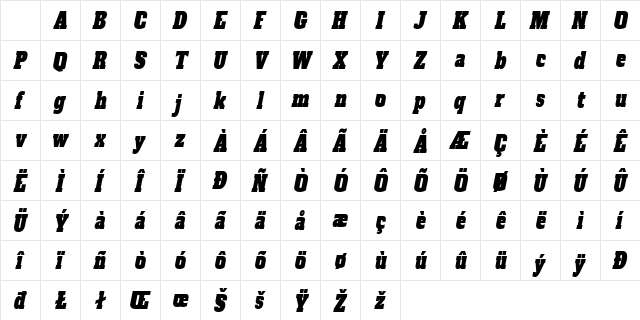
Complete MREYBOLL Slab Slant Regular glyph index. Displaying only characters natively supported by MREYBOLL Slab Slant Regular font.
MREYBOLL Slab Slant features prominent, blocky serifs that give it a confident, grounded presence - equally at home in editorial settings and bold branding work.
Pro Tip: Use MREYBOLL Slab Slant for headlines and subheadings where its slab serifs can make an impression. It also holds up well in mid-size body copy thanks to its sturdy construction.